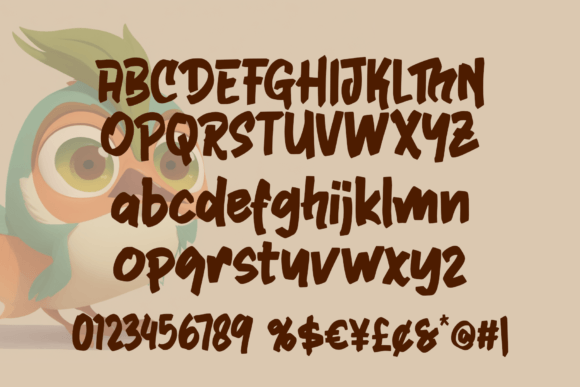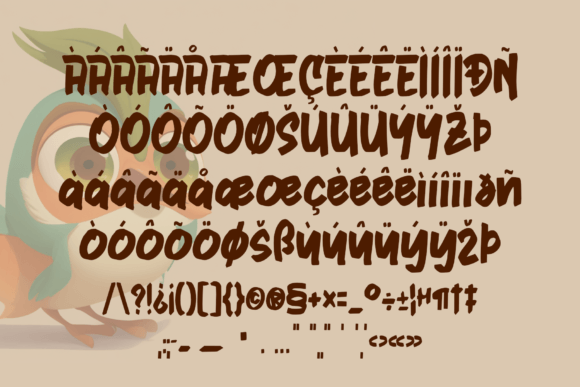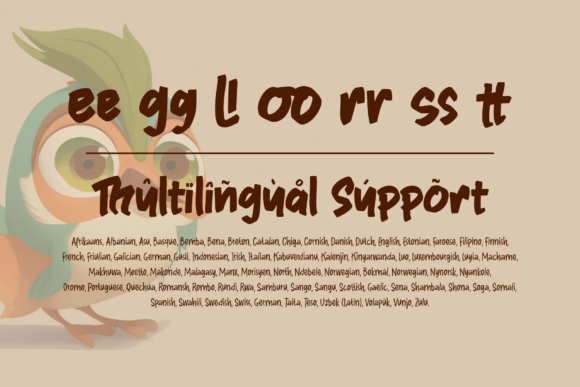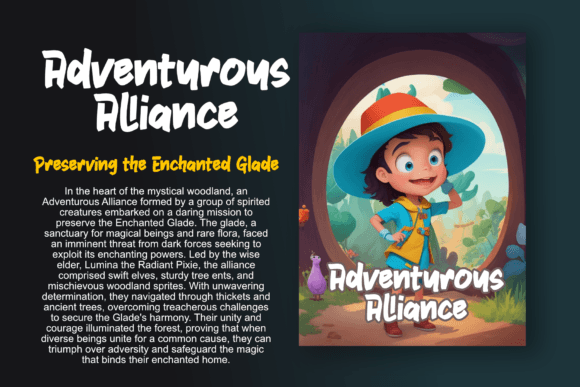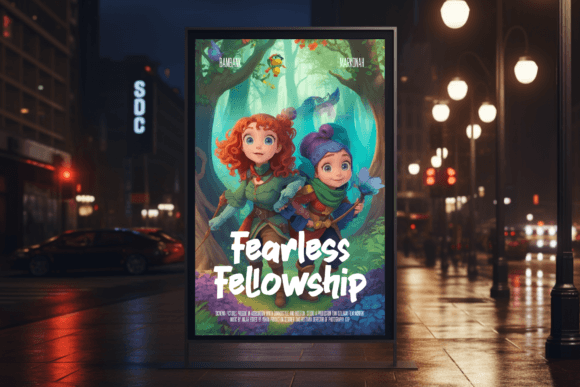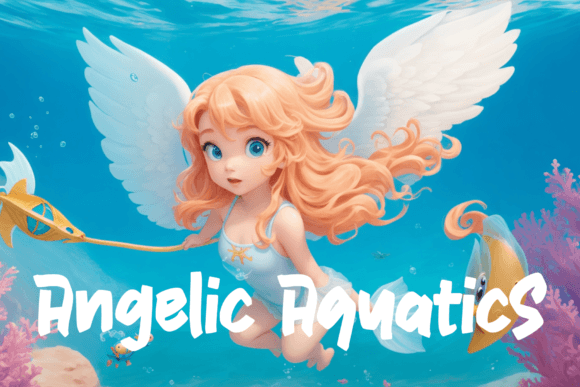
Introduction to Jackquil Display Font
Imagine you’re flipping through a vibrant children’s book, the colorful illustrations and playful text coming alive on every page. The font used in this book is not just any font – it’s the Jackquil Display Font, a display font that brings joy and uniqueness to every design project. As a designer, you know the importance of choosing the right font to capture your audience’s attention and evoke the right emotions.
With its bold lines and whimsical shapes, Jackquil Display Font is perfect for creating a delightful and creative atmosphere in your designs. Whether you’re working on a storybook, poster, or educational material, this font is a valuable resource that will inspire the spirit and imagination of children. And the best part? You can download it for free, complete with a transparent background, making it easy to integrate into your high-quality design projects.
Key Features of Jackquil Display Font
- The Jackquil Display Font is a high-quality design resource ideal for creative projects that require a unique touch.
- With its unique blend of elegance and playfulness, the Jackquil Display Font is perfect for adding a creative twist to any design project.
Honest Review: Jackquil Display Font
As a designer, I’m always on the lookout for high-quality design resources to enhance my creative projects. Recently, I stumbled upon the Jackquil Display Font, and I’m excited to share my honest review.
- ✨ The font’s bold and elegant design makes it perfect for titles, headings, and other display text.
- ⚠️ The font’s limited character set may require additional font pairing for more complex designs.
- ⚠️ The font’s bold weight can sometimes be overwhelming, so use it sparingly.
Overall, I’m impressed with the Jackquil Display Font’s high-quality design and versatility. While it may have some limitations, it’s a great addition to any designer’s toolkit, especially for creative projects requiring bold and eye-catching typography.
To maximize the use of the Jackquil Display Font, experiment with different font sizes, colors, and combinations to create visually appealing designs.
The Jackquil Display Font is ideal for:
- Headings and titles
- Quote graphics
- Logo designs